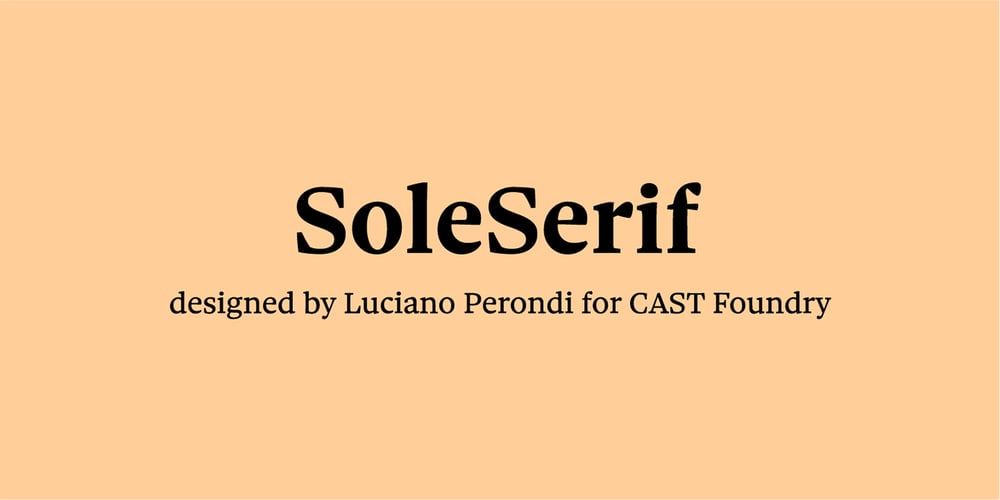
Sole Serif
Sole Serif font
Sole Serif Font Family was designed by Luciano Perondi and published by CAST. Sole Serif contains 74 styles and family package options. Sole Serif is a newspaper face with features relating to book typography. Inspiration from Francesco Griffo’s romans was adapted to resist the rough usage typical of newspaper printing without any loss of quality. Sole Serif is available in an extensive range of cuts including extra bold and ultra thin. With its big x-height, short ascenders and a roundish and wide italic for text and titles, it has all the attributes of a newspaper face. Nonetheless, details like the inclined axis, calligraphic terminations, Renaissance proportions and a refined but slightly mannered design, all evoke the book rather than the daily paper.